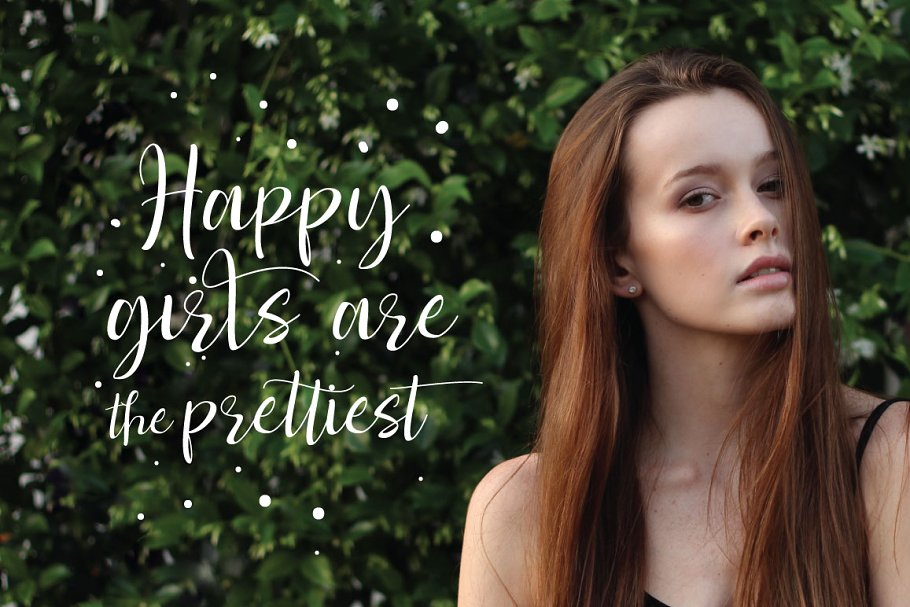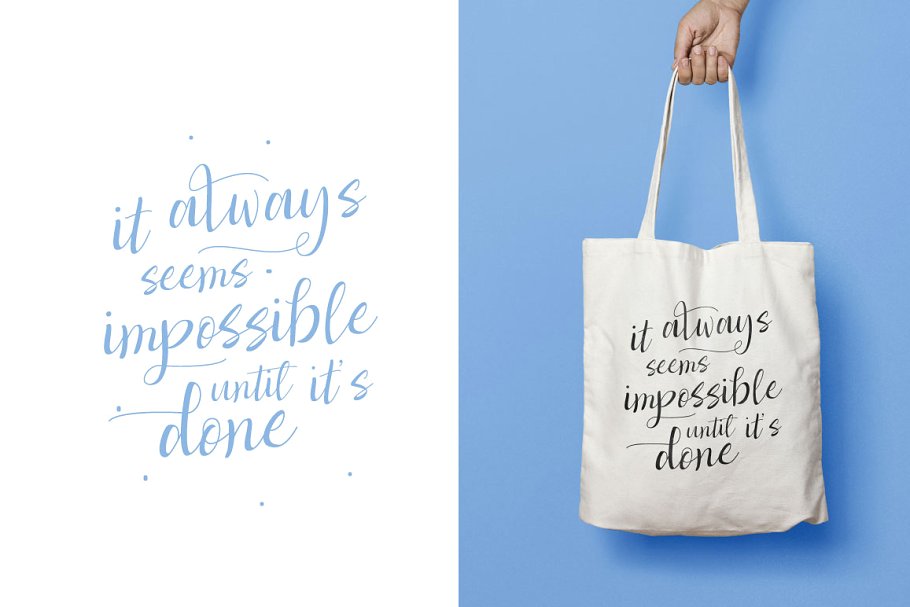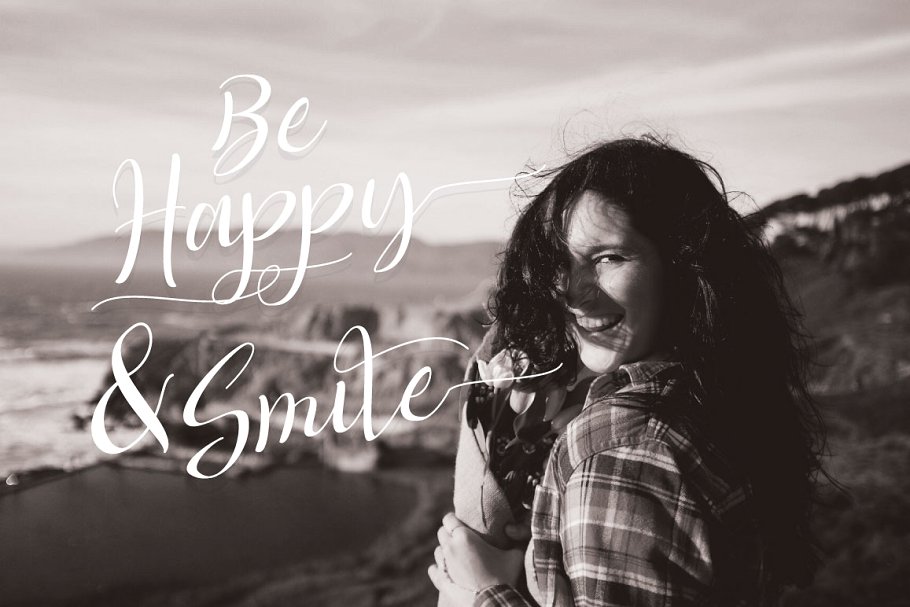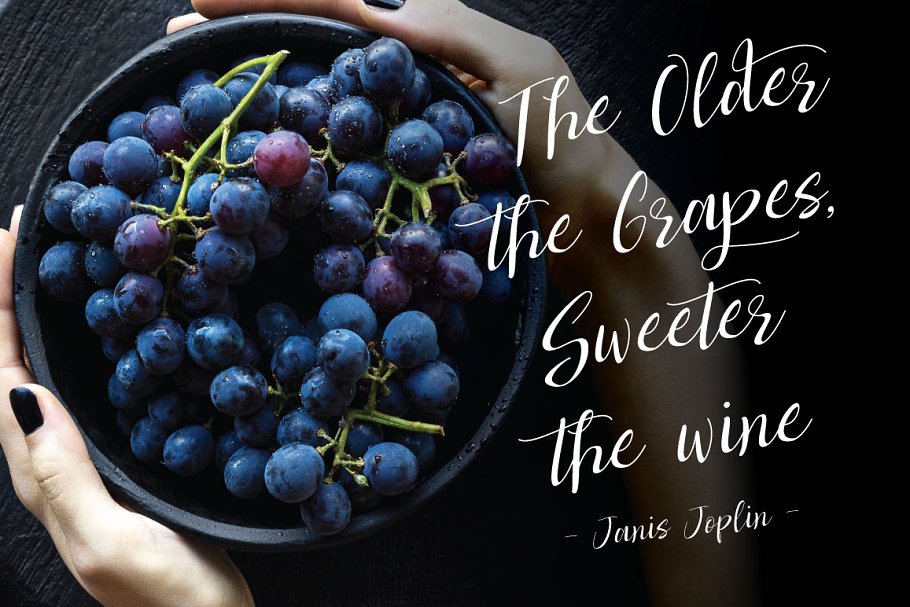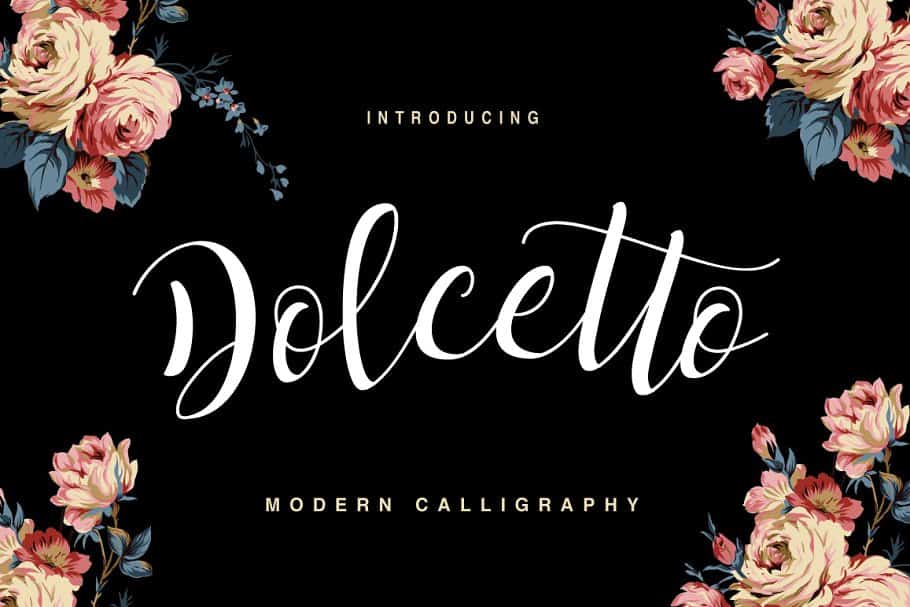
Dolcetto Script Font
The New Script typeface called Dolcetto Font. The flowing characters are ideal to make an attractive messages, mix and match Dolcetto with a bunch of alternative characters to fit your project. Dolcetto Script are Modern Calligraphy Script Typeface with amazing character & a multitude of letter variations to make that perfect and unique design. Ideal for a logo, a name tag, handwritten quotations, product packaging, goods, social media and greeting cards.